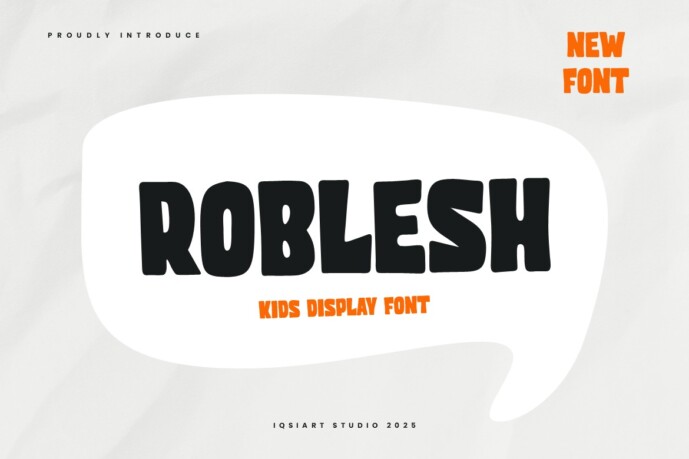
Roblesh Font
Roblesh Font is a best and authentic display font. This font can be used for your various needs. We provide various themes and font styles. visit our profile to get a wide variety of themes and different font styles you need.